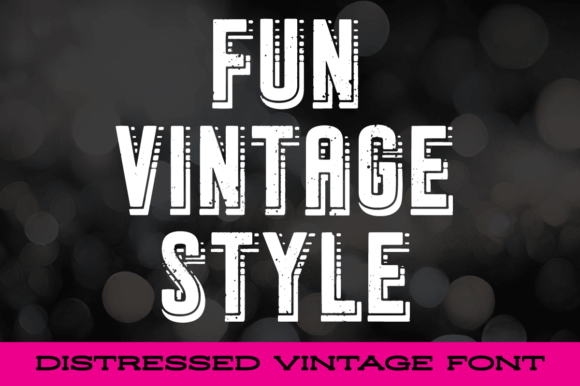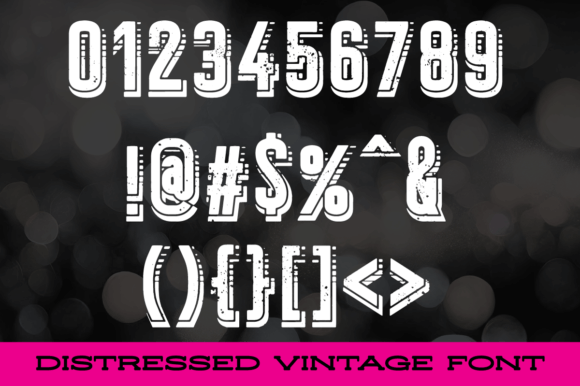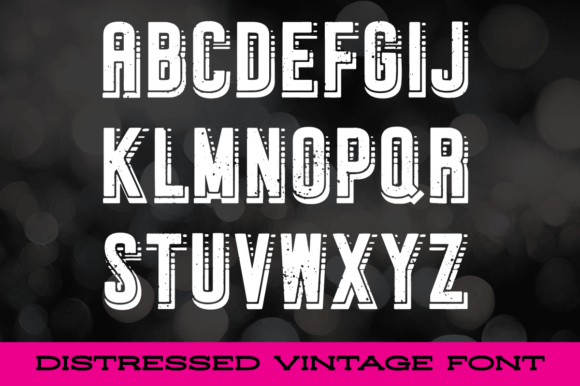
Discover the Timeless Charm of the Echo Eroded Font
Have you ever stumbled upon an old, worn-out sign in a dusty corner of a vintage shop, and instantly felt a connection to the past? That’s the magic of the Echo Eroded Font – a captivating vintage font that seamlessly merges grunge aesthetics with timeless charm. This sans-serif typeface exudes character and nostalgia, encapsulating the essence of a bygone era.
The Echo Eroded Font boasts a uniquely distressed texture, lending an authentic, weathered appearance to each character. Its carefully crafted vintage style transports users to a simpler time, reminiscent of old signs and faded prints. For designers, this font is a valuable asset, offering a perfect blend of rustic charm and sophistication.
Key Features of Echo Eroded Font
- Font Family: Echo Eroded
- Unique Characteristics: Distressed, weathered, and worn-out texture effects; ideal for creating a vintage or retro aesthetic
Review of Echo Eroded Font
Overall, I think Echo Eroded Font is a great addition to any designer’s toolkit. ✨ Its distressed, worn look is perfect for creating a sense of nostalgia or vintage charm. The font is highly versatile and can be used for a wide range of applications, from logos to body text.
One of the standout features of Echo Eroded Font is its customizability. ✨ The font comes in a range of weights and styles, making it easy to find the perfect fit for your design. The font is also highly legible, even in small sizes.
However, there are a few limitations to consider. ⚠️ For one, the font may not be suitable for all types of designs. Its distressed look can be overwhelming if overused, and it may not be the best choice for more modern or minimalist designs. Additionally, the font may require some additional tweaking to get it to look its best, particularly in terms of kerning and spacing.
- Distressed, worn look perfect for nostalgic or vintage designs
- Highly customizable, with a range of weights and styles
- Legible even in small sizes
- May require additional tweaking for optimal results
The Echo Eroded Font is perfect for:
- Creating a distressed or vintage look for logos, titles, and headings.
- Adding a weathered or worn look to text elements in designs.
- Enhancing the visual appeal of posters, flyers, and brochures.